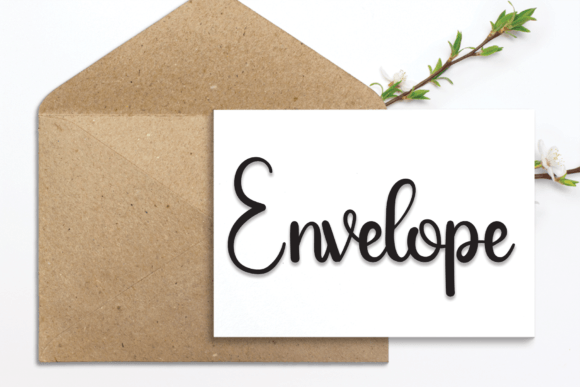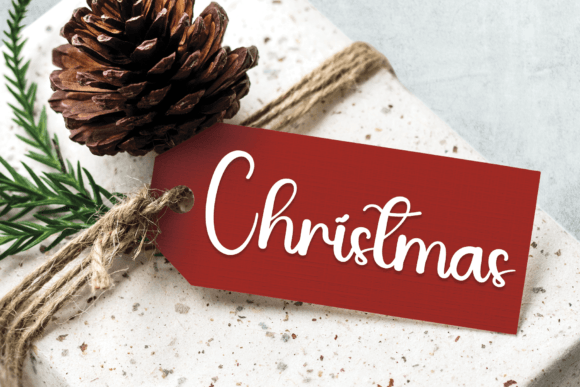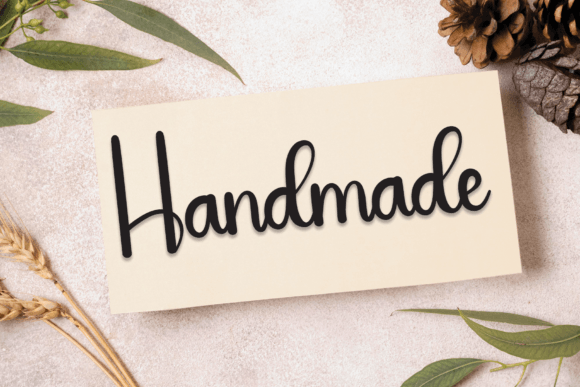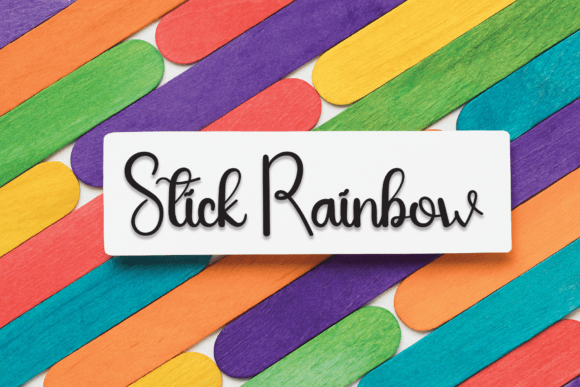
Have you ever stared blankly at a blank page, trying to come up with the perfect font to match your creative vision? It’s a moment we’ve all been there, right? For me, it’s the moment when everything comes together – the colors, the textures, the typography – and I know I’m onto something special.
That’s why I’m excited to introduce you to the Daddy Boho Font, a simple and friendly handwritten font that’s perfect for a wide range of creative projects. Whether you’re crafting, designing digitally, creating presentations, or making greeting cards, this font has the potential to become your go-to font, whatever the occasion.
As a designer, you know how valuable it is to have a versatile and reliable font in your toolkit. The Daddy Boho Font is just that – a reliable companion that will help you bring your ideas to life with style and personality.
Daddy Boho Font Key Features
- Font Family: Daddy Boho Font is a unique, handwritten font designed to add a bohemian touch to any project.
- Unique Characteristics: The font features a distinctive, handwritten style with irregular letterforms, swashes, and flourishes, adding a touch of elegance and sophistication.
Daddy Boho Font Review
I must say, the Daddy Boho Font has a certain charm to it ✨. The combination of elegant script and whimsical flair makes it perfect for designers looking to add a touch of sophistication and playfulness to their projects. The font’s organic feel and subtle imperfections give it a unique character that sets it apart from more generic fonts.
However, there are a few limitations to consider ⚠️. The font’s readability can be affected by the size and placement of the text, and it may not be the best choice for body text or large blocks of text. Additionally, the font’s style can come across as somewhat inconsistent, which may be a concern for designers who value precision and uniformity.
- ✨ Unique and elegant design
- ✨ Perfect for adding a touch of whimsy to projects
- ⚠️ May not be suitable for body text or large blocks of text
- ⚠️ Style can be inconsistent
- ✨ Great for titles, headings, and other display text
Overall, I think the Daddy Boho Font is a great choice for designers who want to add a bit of personality to their projects. While it may have some limitations, its unique charm and versatility make it a valuable addition to any font collection.
Daddy Boho Font Practical Application Guide
Getting the Most Out of Daddy Boho Font
To get the most out of Daddy Boho Font, use it in conjunction with other design elements that complement its bohemian style. Some common use cases include:
- Travel and adventure branding
- Wellness and spiritual branding
Remember to experiment with different font sizes, colors, and styles to create a unique look that reflects your brand or design aesthetic.